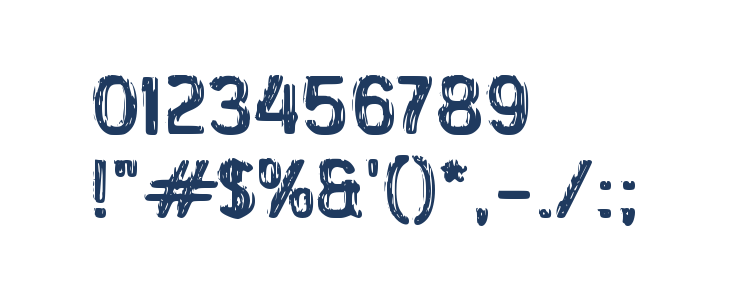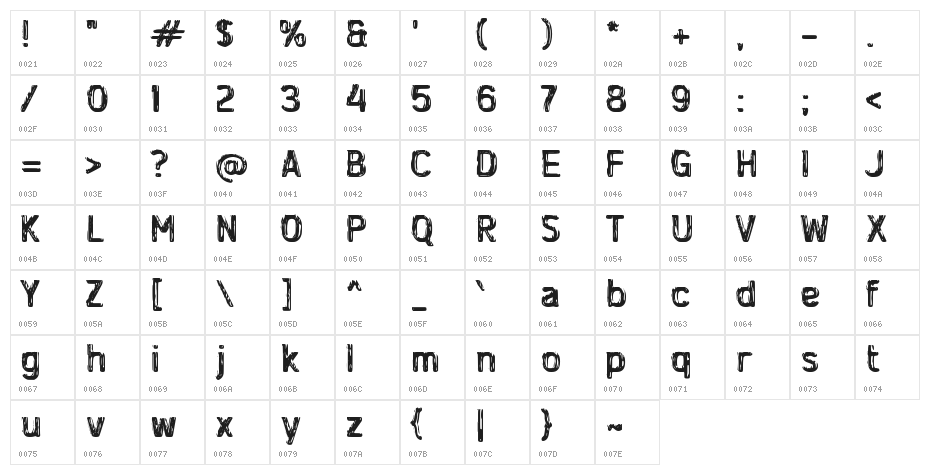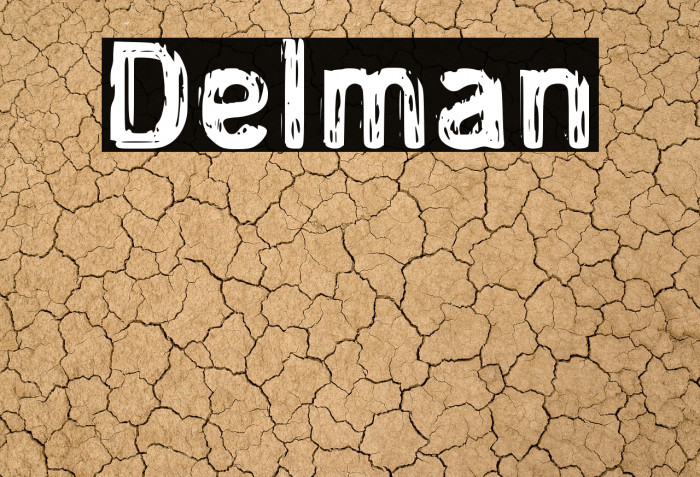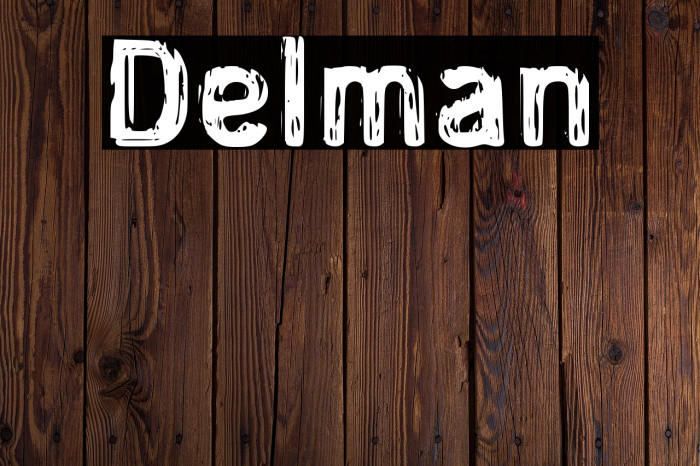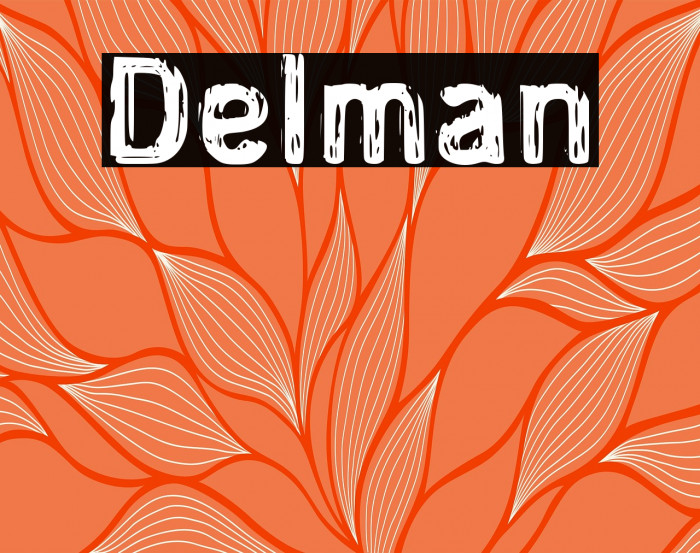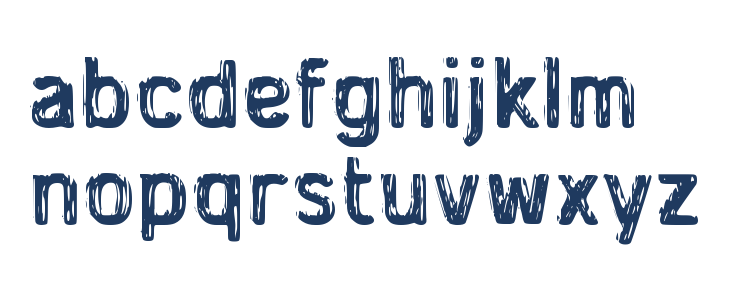
Delman Font
Delman Description
This font features a bold, distressed style with a textured appearance that gives it a rugged and worn look. The characters are uppercase and lowercase, with numerals and a variety of punctuation marks. The edges are rough and uneven, adding to its vintage and handcrafted feel. This font is ideal for projects that require a bold statement or a rustic, organic touch. Its unique style makes it stand out, perfect for eye-catching designs.
| Overall Style | Vintage |
| Proposed Projects | Ideal for posters, branding, packaging, and any design needing a bold, vintage touch. |